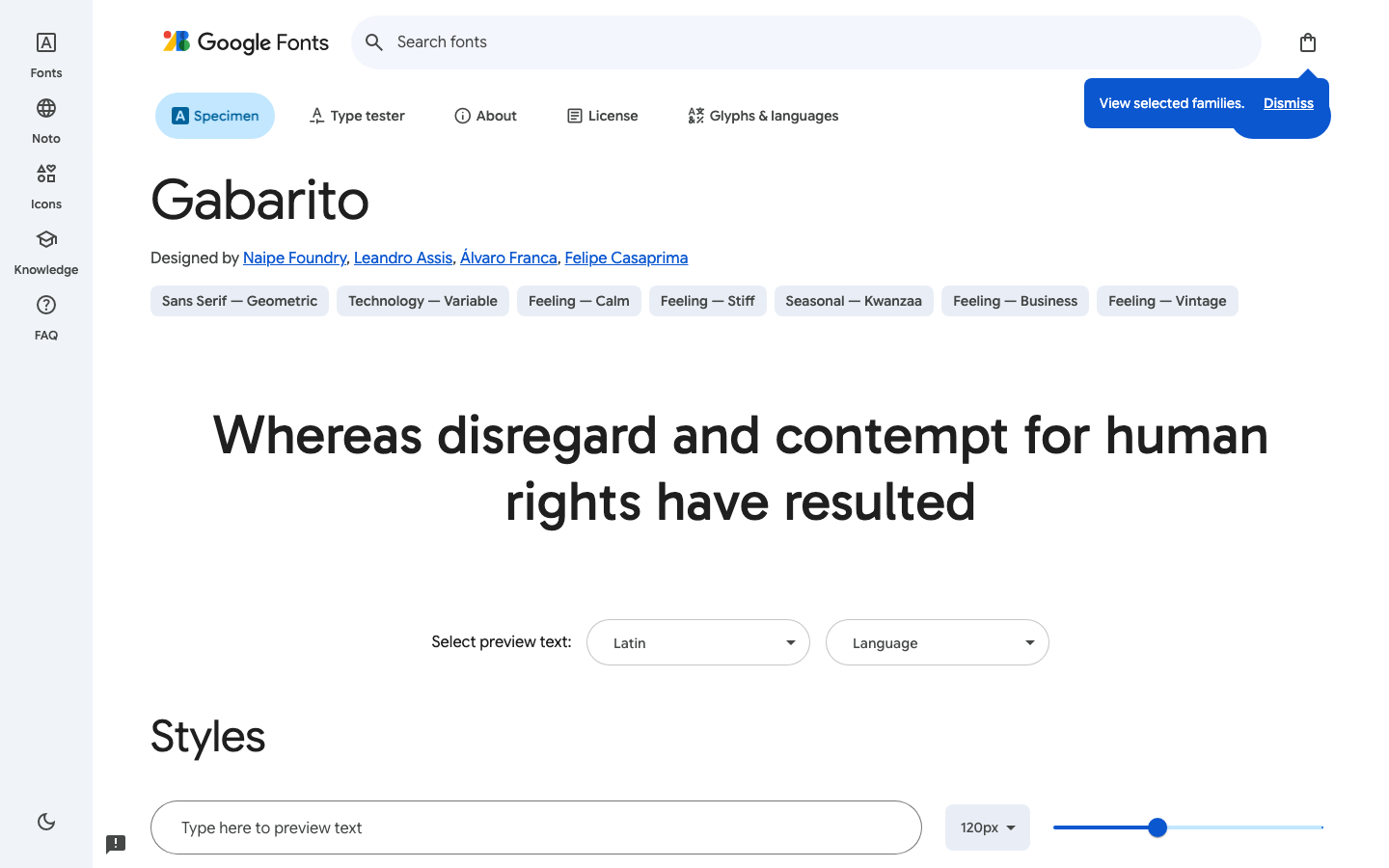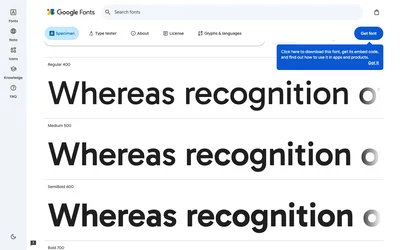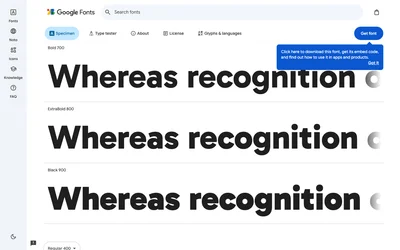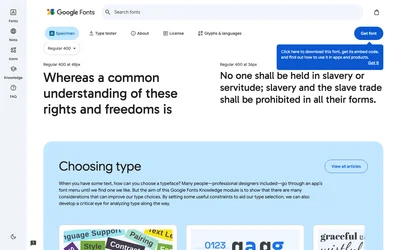
Figtree vs Gabarito
Figtree and Gabarito are both sans-serif typefaces sharing a warm foundation. Where Figtree leans geometric, Gabarito brings display. Compare which suits your Apps project.
| Feature | Figtree | Gabarito |
| Variable Font | Yes | Yes |
| Weights | Variable | Variable |
| Source | Erik Kennedy | Naipe Foundry |
Weight & Style Coverage
Recommended: Figtree
- geometric design character
- Suited for Ui and Web
- From erik-kennedy
Consider: Gabarito
- display design character
- Suited for Display and Creative
- From naipe-foundry